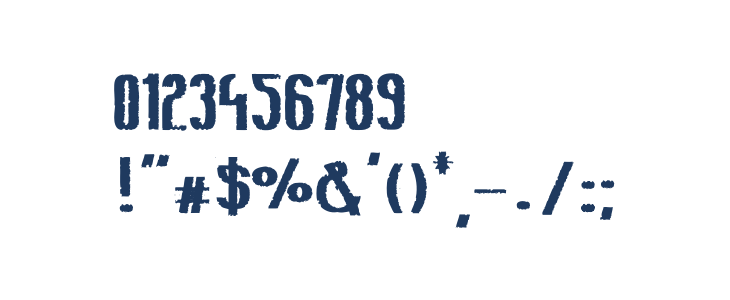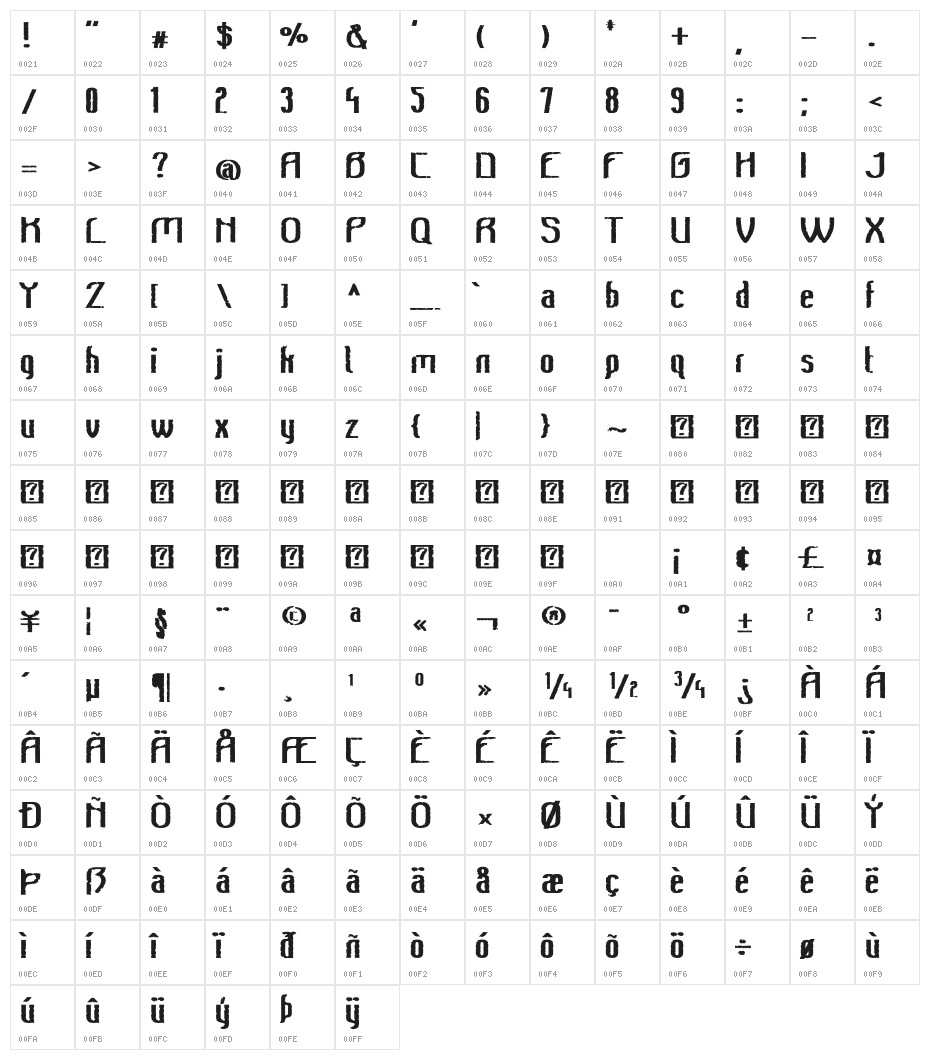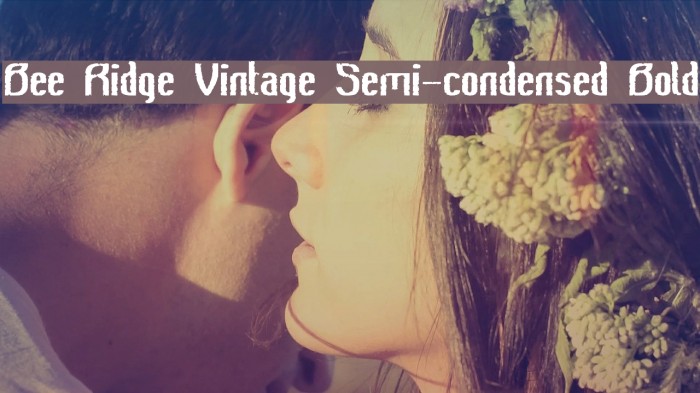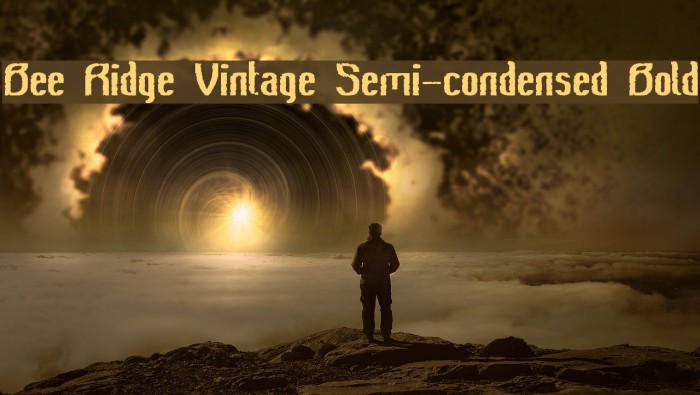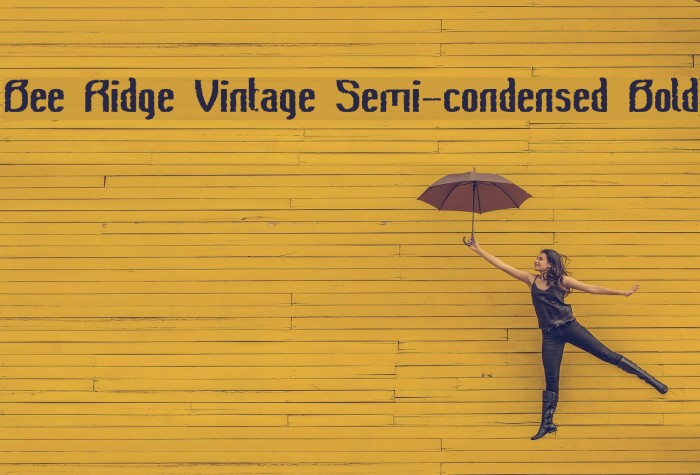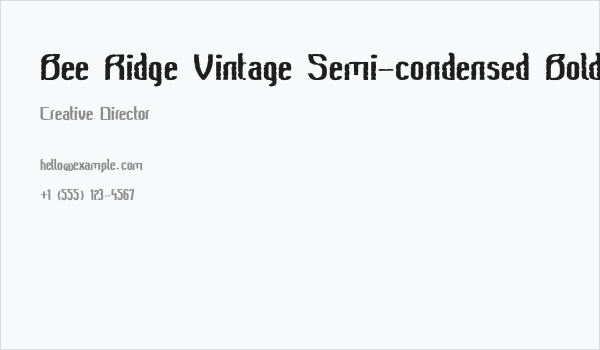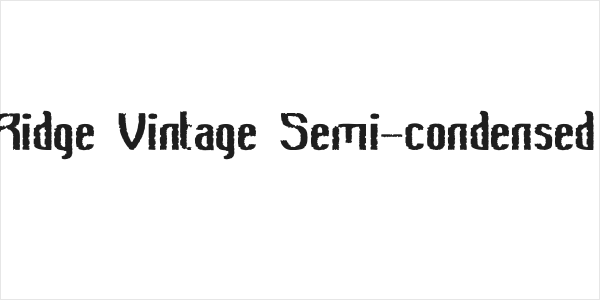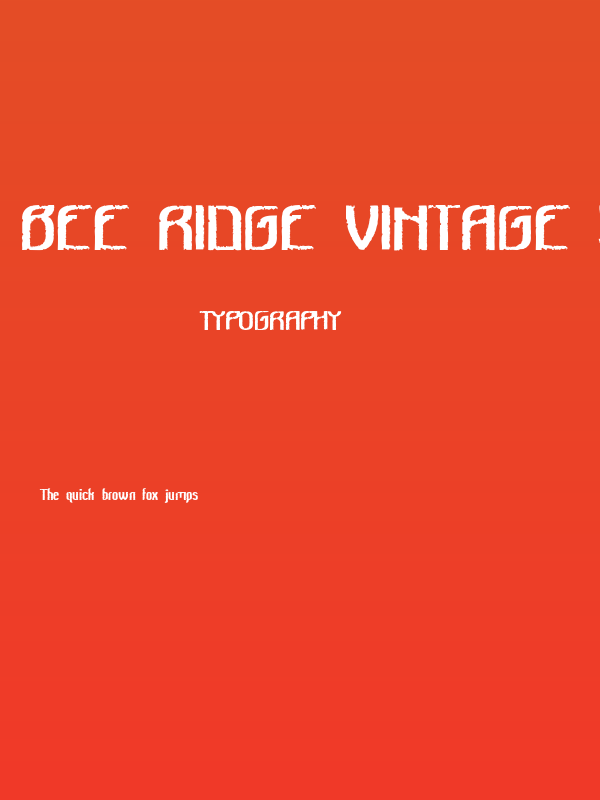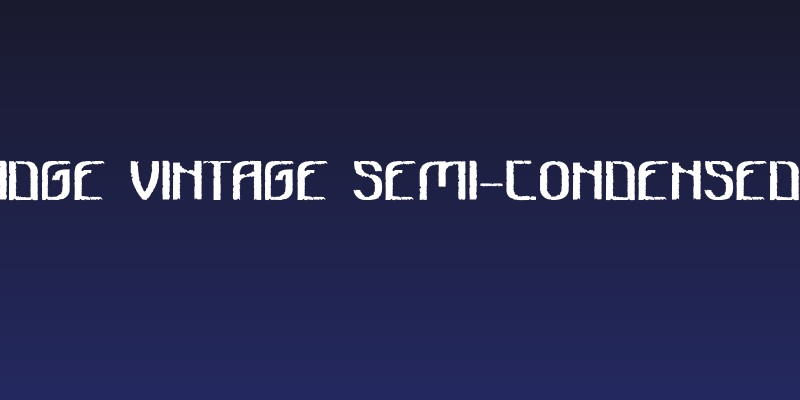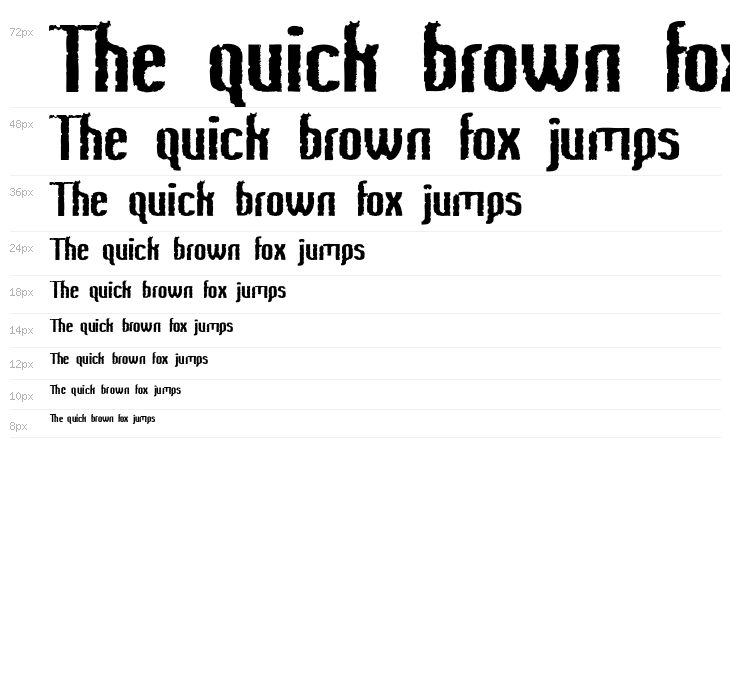
Bee Ridge Vintage Semi-condensed Bold Font
Bee Ridge Vintage Semi-condensed Bold Description
This font features a bold, semi-condensed style with a vintage flair. The characters have a distressed, textured appearance, giving them a rugged and worn look. The uppercase letters are tall and narrow, while the lowercase letters maintain a consistent height, contributing to the semi-condensed nature. The numbers and special characters follow the same stylistic cues, ensuring a cohesive design throughout. The font's unique character is enhanced by its irregular edges and varying stroke widths, which add to its handcrafted feel.
| Proposed Projects | Ideal for vintage-themed posters, retro branding, rustic packaging, and artistic designs. |